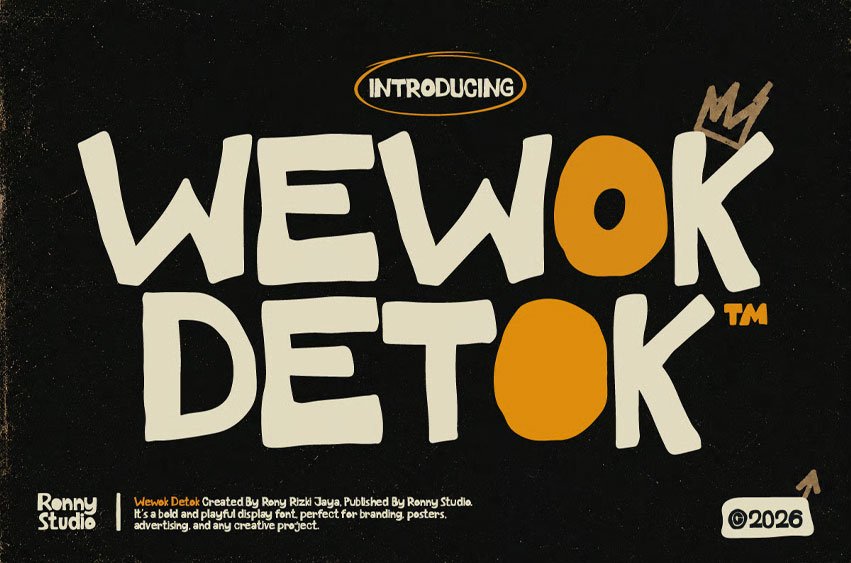
Wewok Detok Font is a fun and bold display font with playful hand-drawn characters and strong personality. Perfect for posters, packaging, branding, social media, logos, headlines, and creative projects that need an eye-catching and energetic look.
Perfect For: Posters, packaging, branding, social media, stickers, album covers, logos, headlines, and creative typography.